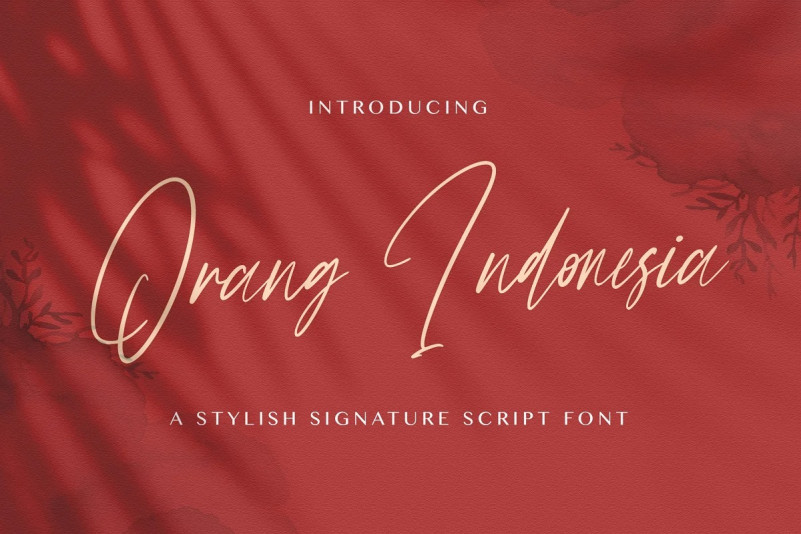
Orang Indonesia Handwritten Font
This handwritten font adds hand look style to all your design projects: logos, signatures, labels, packaging design, and blog headlines. It has beautiful and well balanced characters and as a result, it matches a wide pool of designs. Add it to your most creative ideas and notice how it makes them come alive!